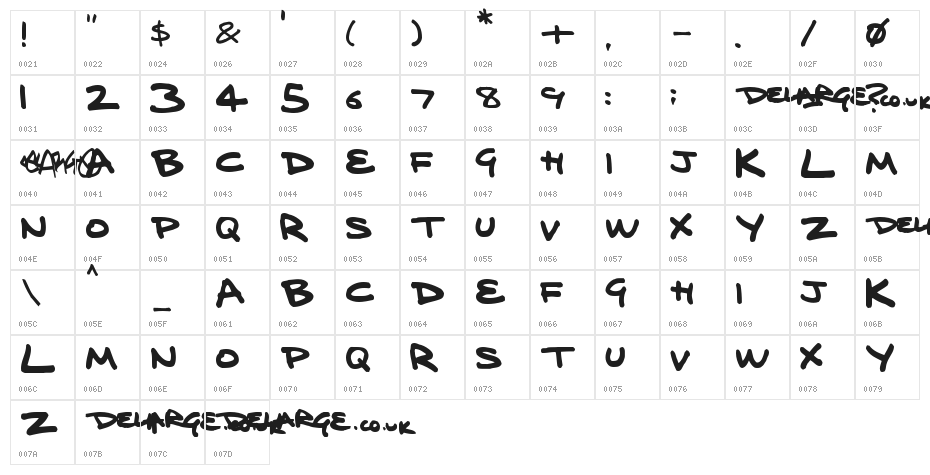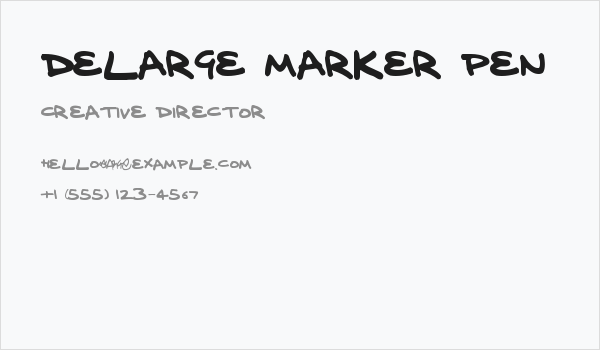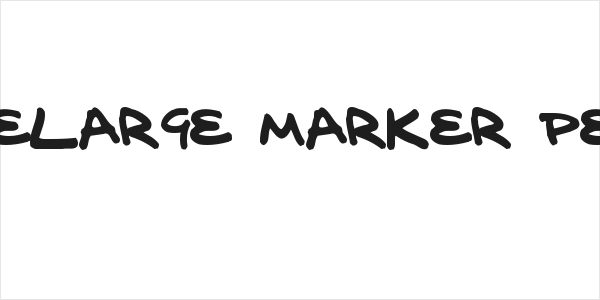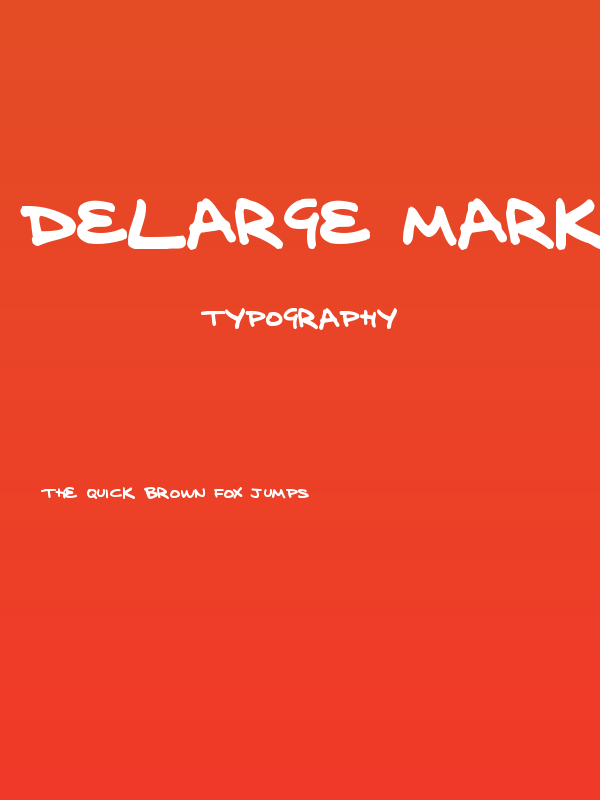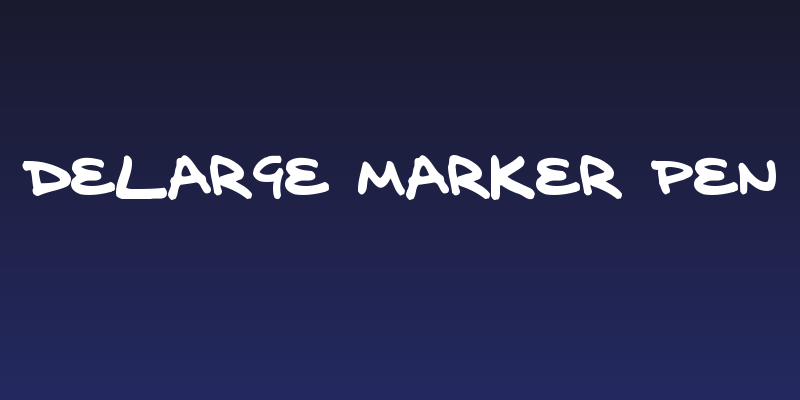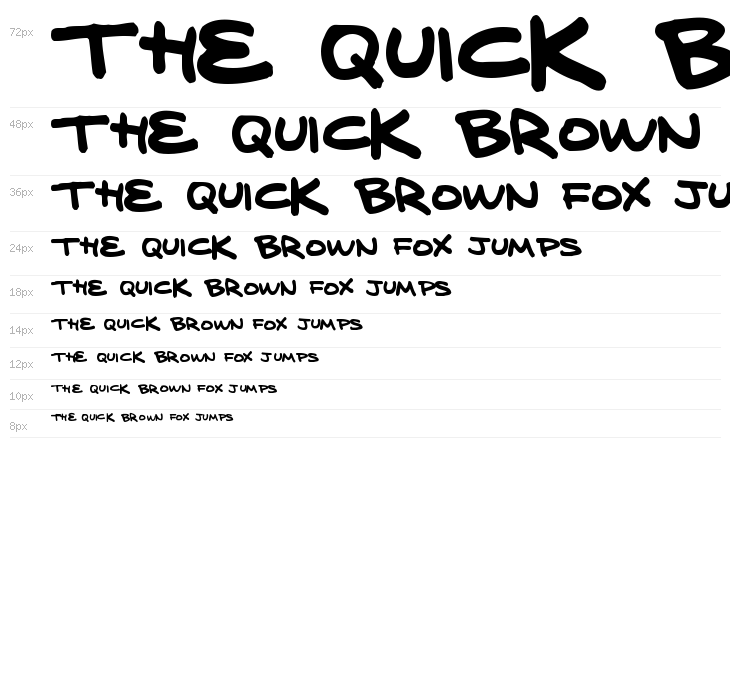
delarge marker pen Font
delarge marker pen Description
This font exudes a playful and casual vibe, reminiscent of handwriting with a thick marker. The characters are bold and rounded, with a slightly uneven baseline that adds to its informal charm. The uppercase and lowercase letters maintain a consistent style, with a noticeable slant that gives the text a dynamic appearance. The numbers are equally bold and maintain the same playful aesthetic. Special characters are included, matching the overall style with a quirky and approachable feel. This font is perfect for projects that require a personal touch or a fun, relaxed atmosphere.
| Proposed Projects | Ideal for children's book covers, playful branding, casual invitations, and social media graphics. |